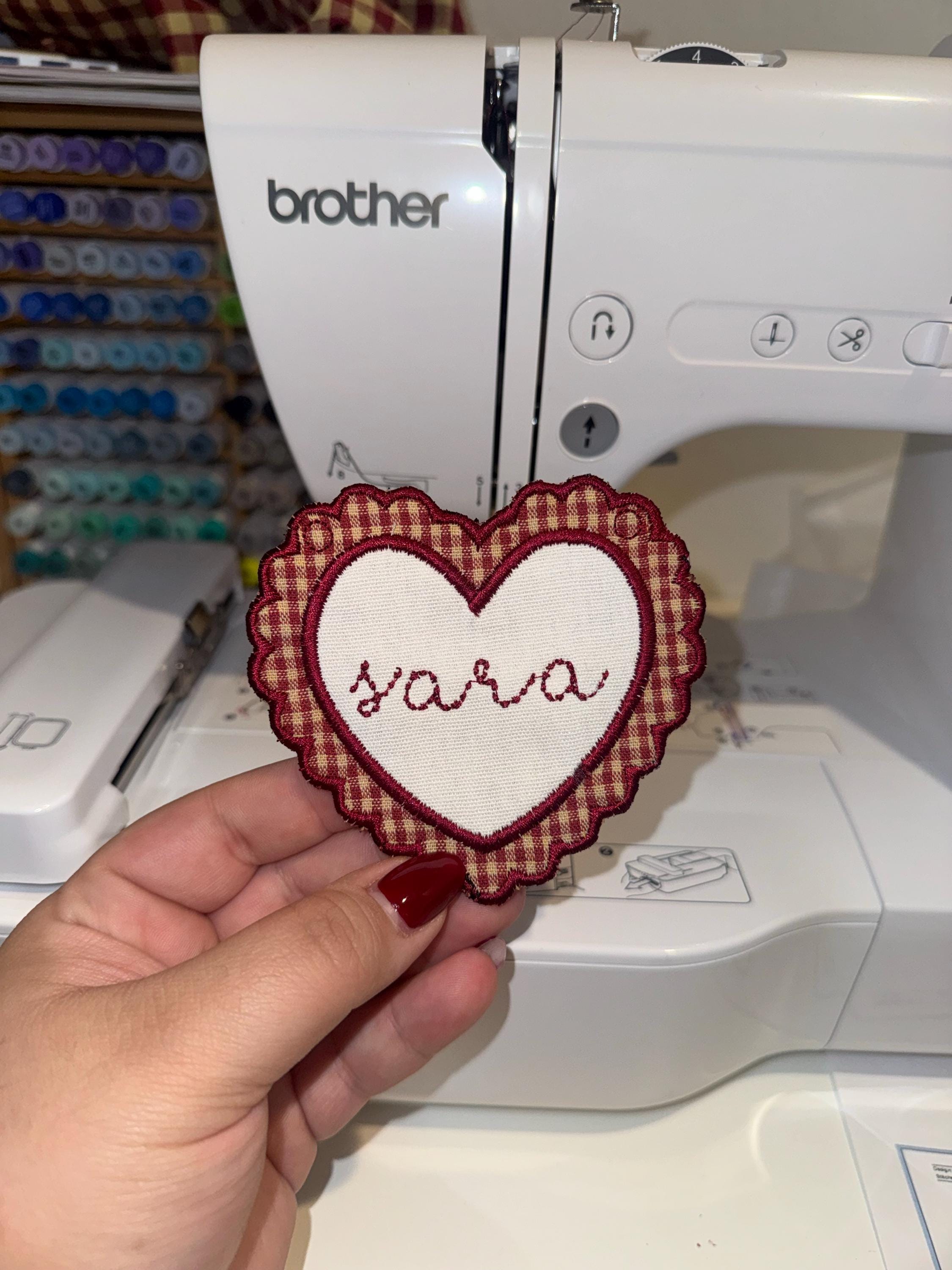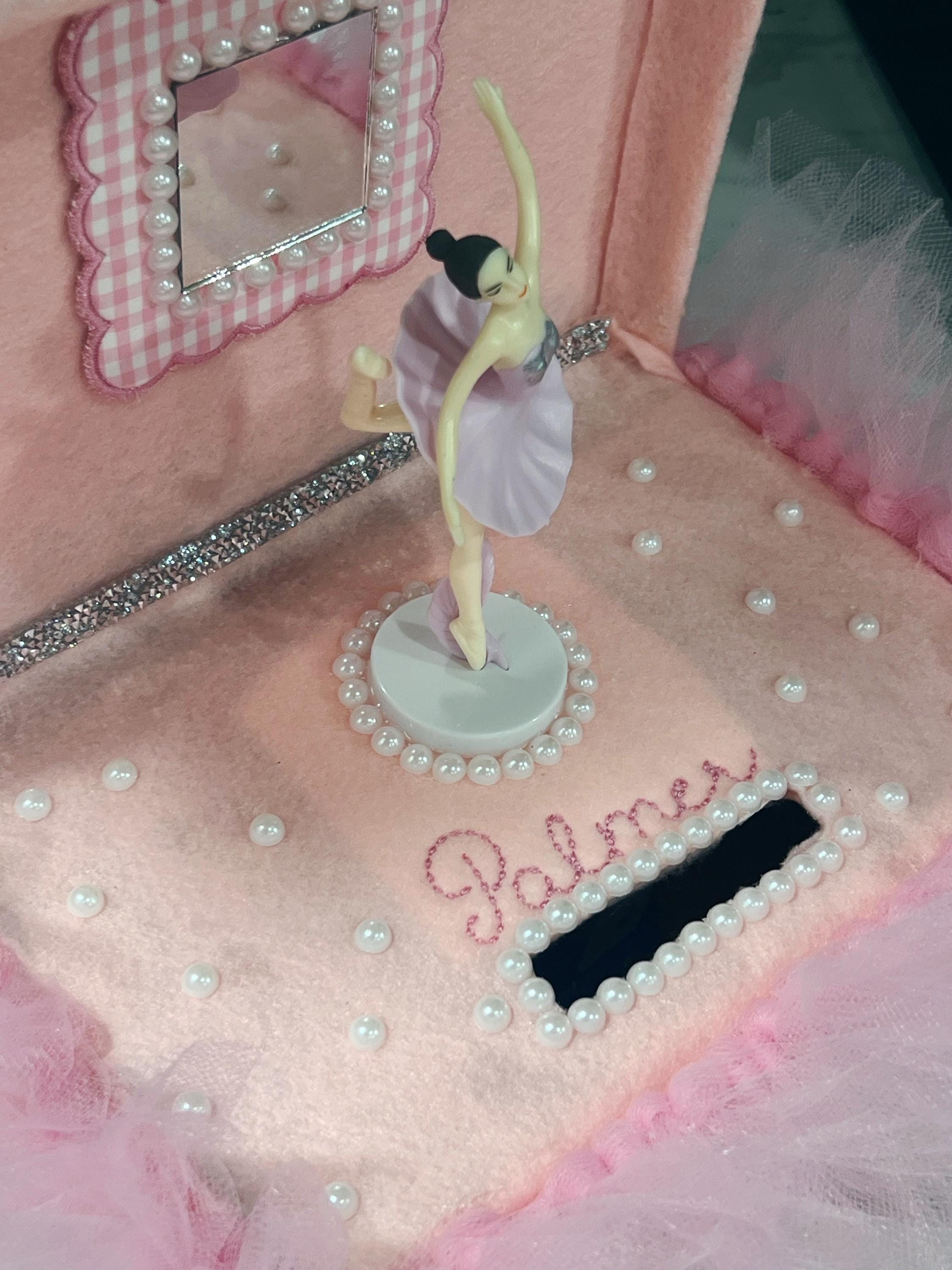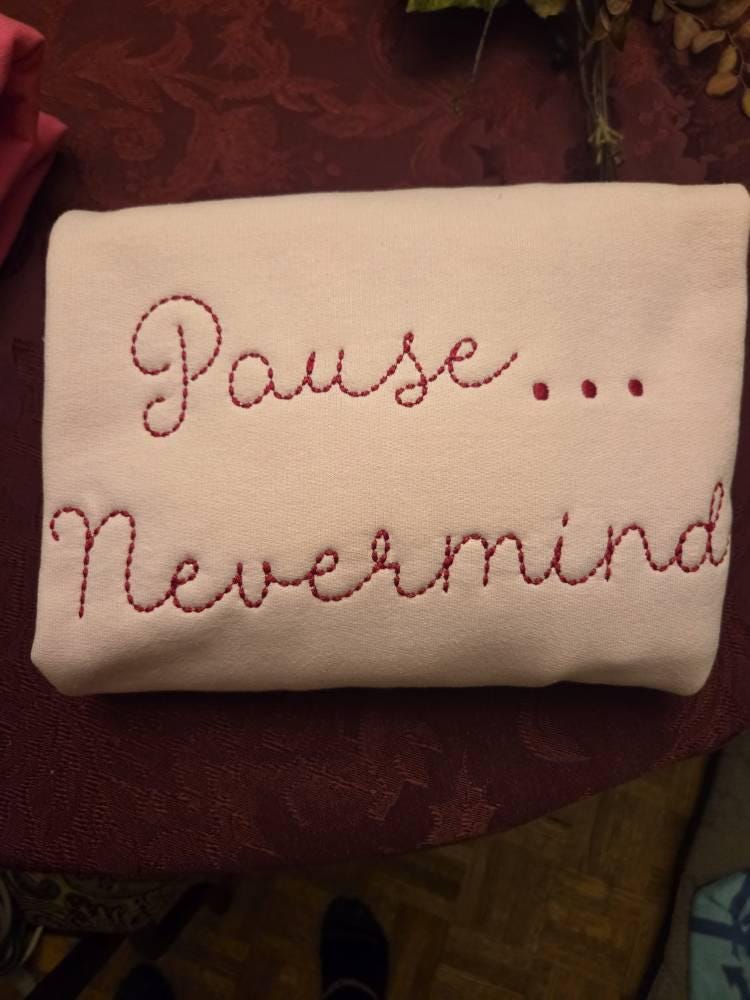
Handwritten script FONT Barbara Hand stitch effect bean stitch alphabet monogram machine embroidery designs many sizes 1.3 to 4.8 inch BX
Entire alphabet uppercase and lowercase letters Aa-Zz, numbers 0-9, and ampersand.